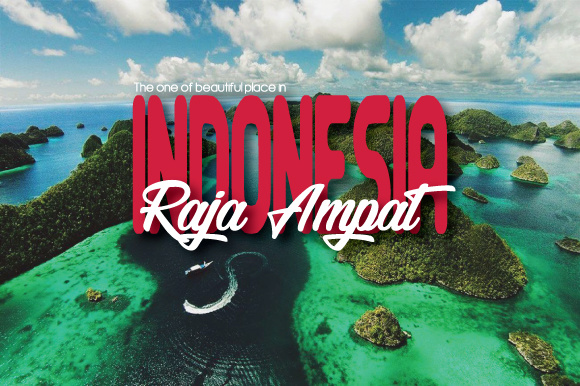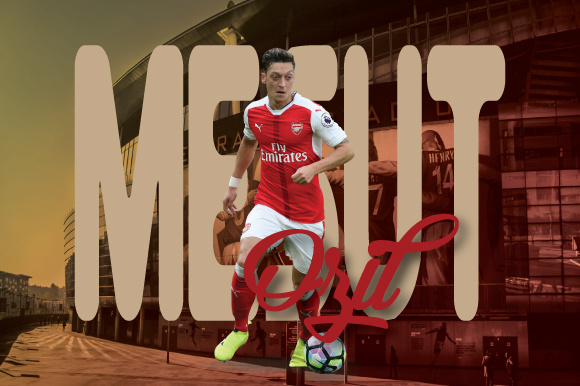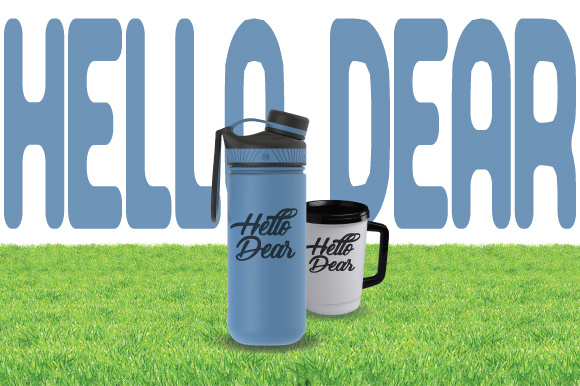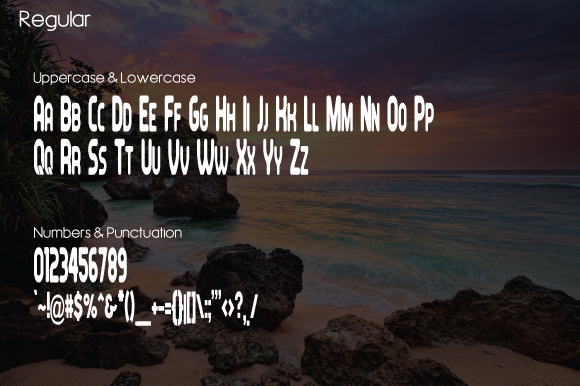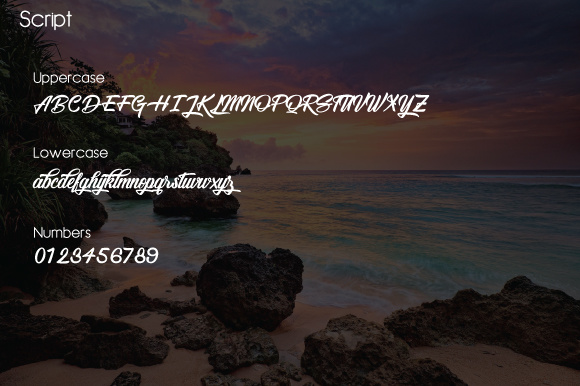
Introduction to Feondra Duo Font
The Feondra Duo consists out of a clean sans serif, combined with a stunning Script.
The Script and Sans perfectly combine, making it suitable for a large range of uses .
Key Features of Feondra Duo Font